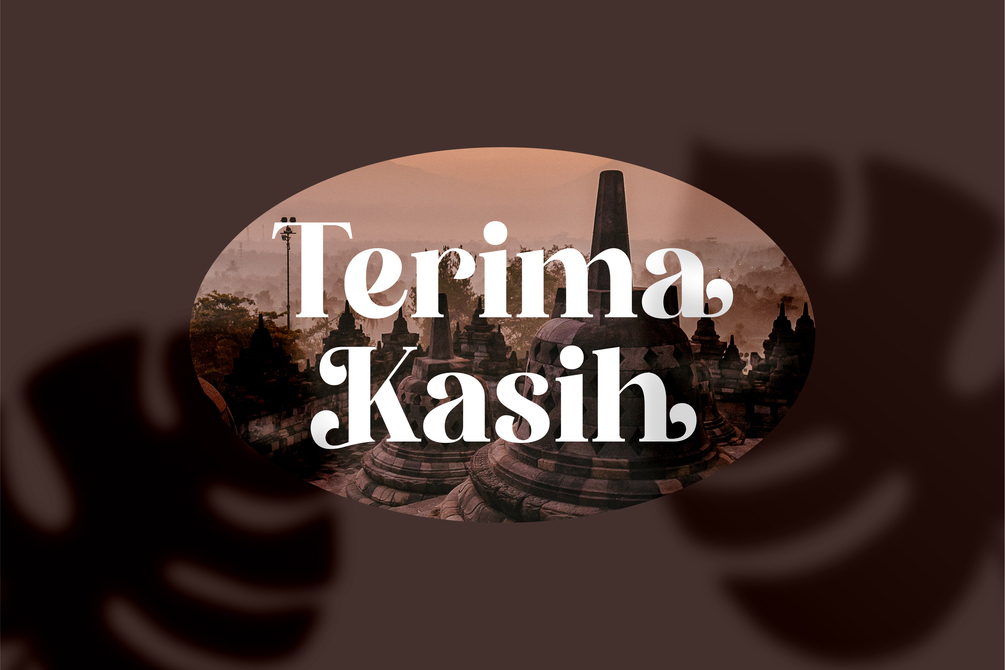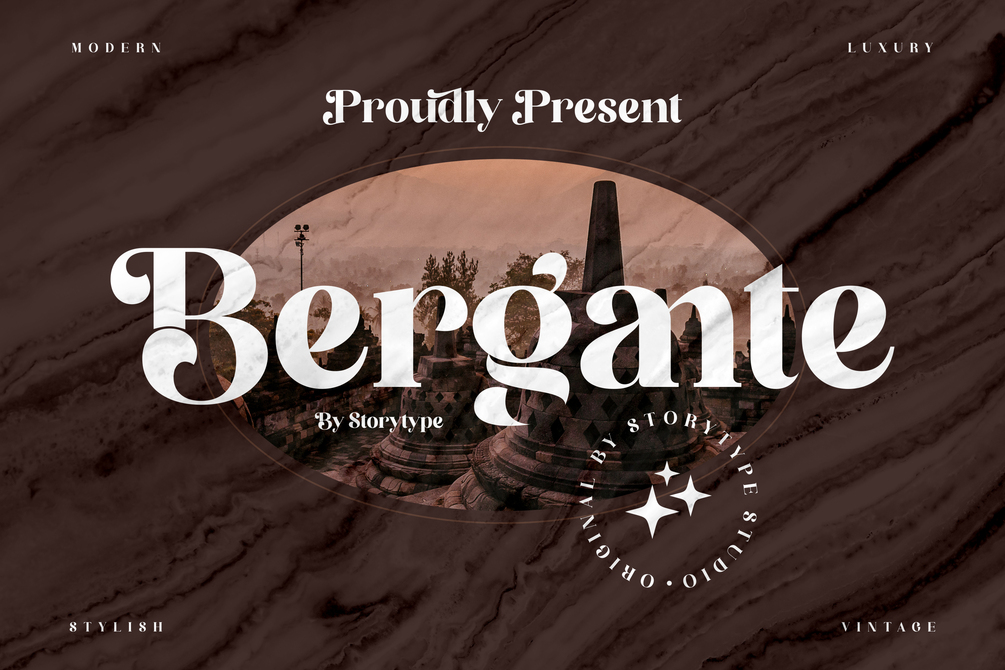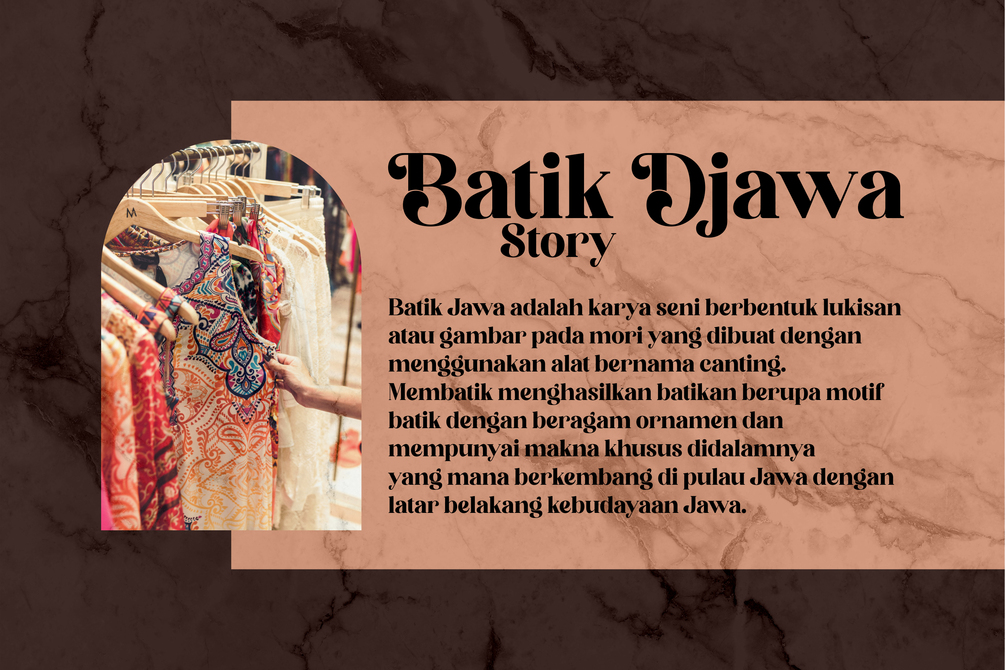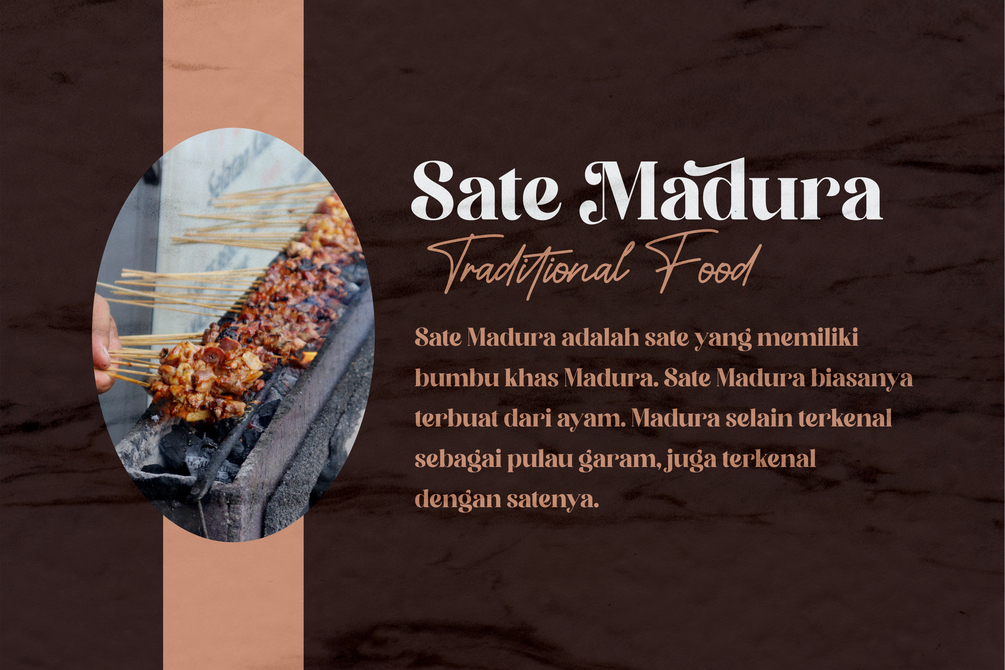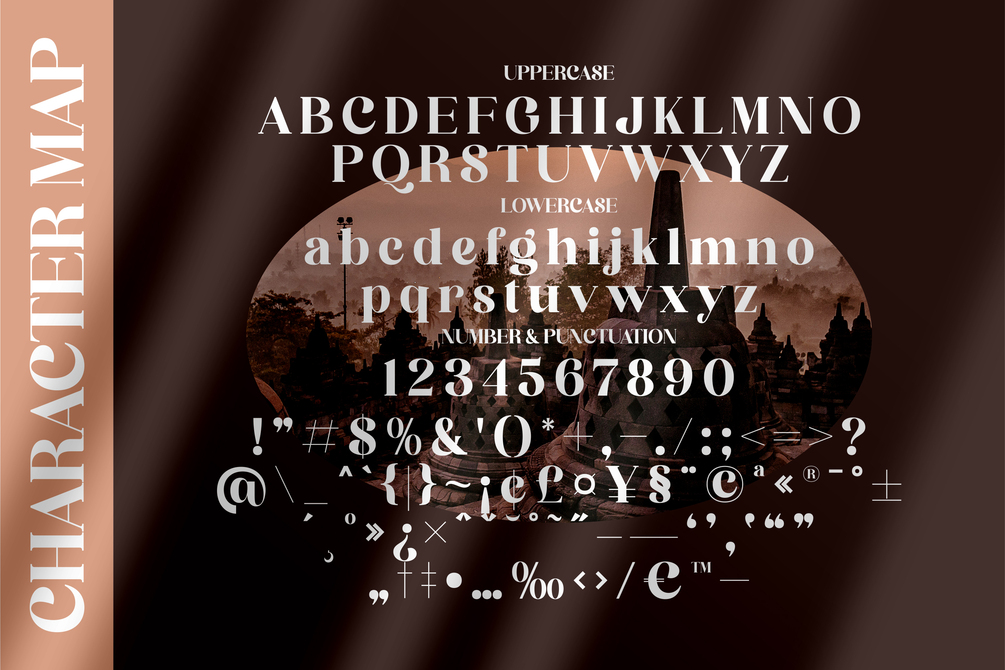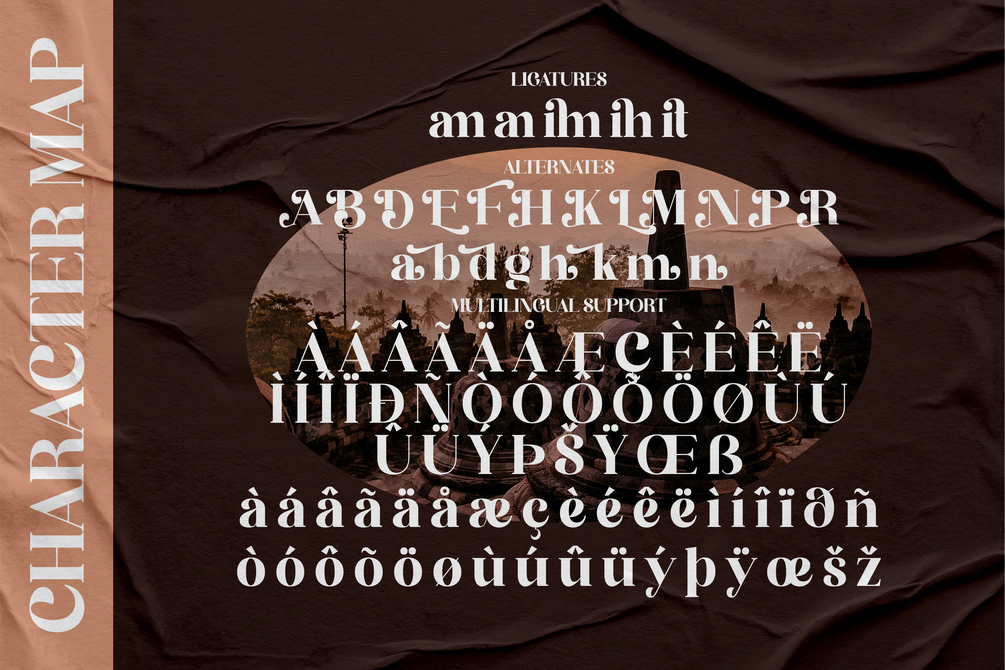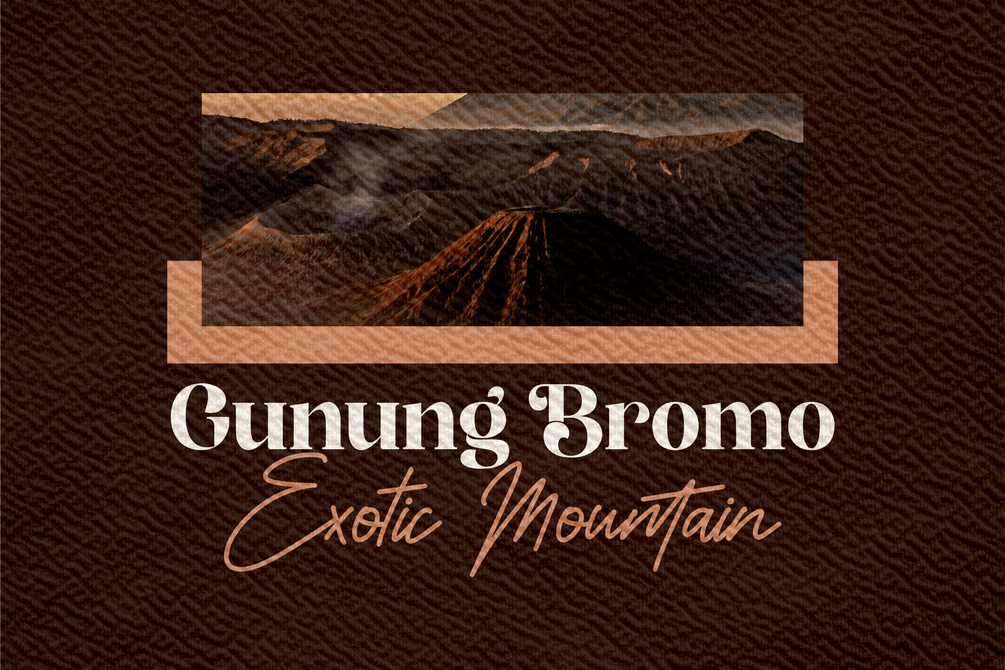
Bergante Typeface
Proudly present Bergante Typeface, created by StoryType,
A decorative typeface that has own unique style & modern look.
This typeface is perfect for an elegant & luxury logo, book or movie title design, fashion brand,
magazine, clothes, lettering, quotes, and so much more.
:: Uppercase & Lowercase, Number, Punctuation
:: Multilingual support